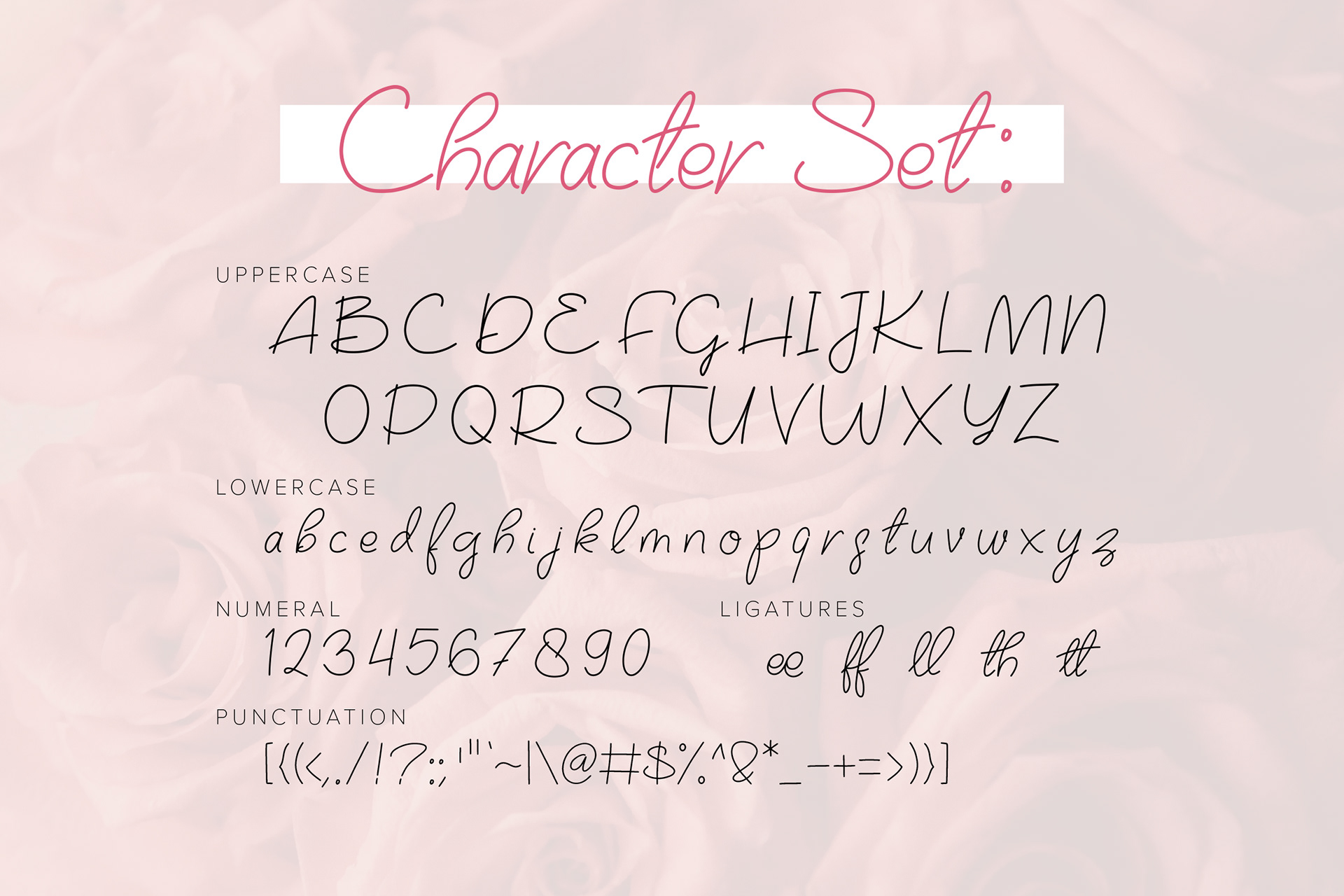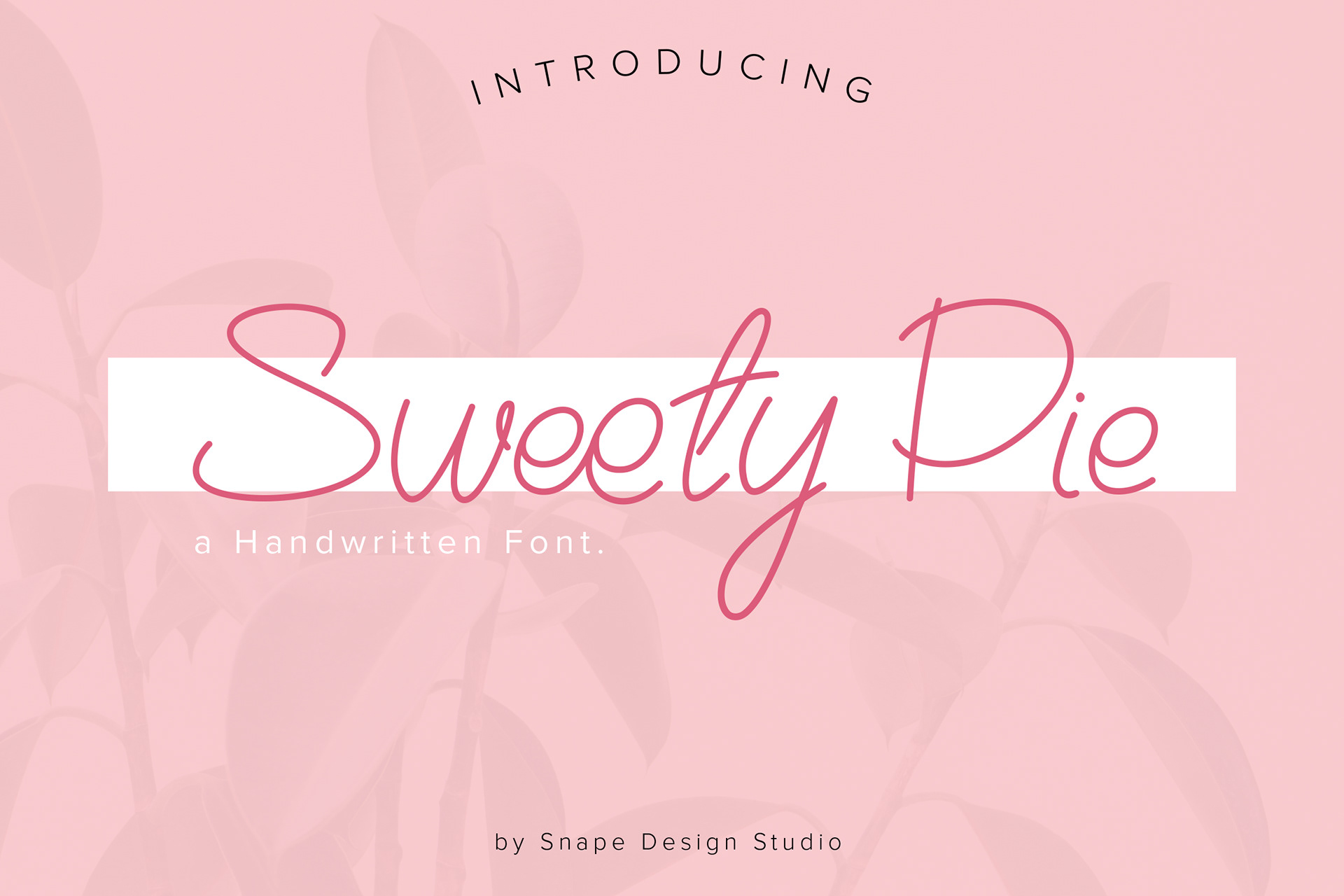
Sweety Pie is a delicate and playful handwritten font. Dainty and cute, this font will bring a spark of romance to each of your designs! Suitable for movie, documenter, film, logo, poster, game, book cover, headlines, title and many more projects. Add this font to your creative ideas and notice how it will make them stand out!
Sweety Pie - Handwritten Font design by Ario Sabrang Damar publish under Snape Design Studio